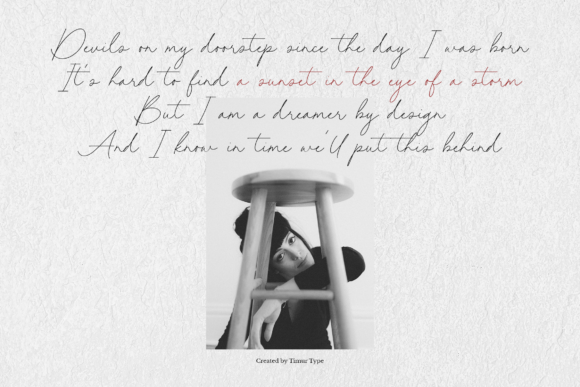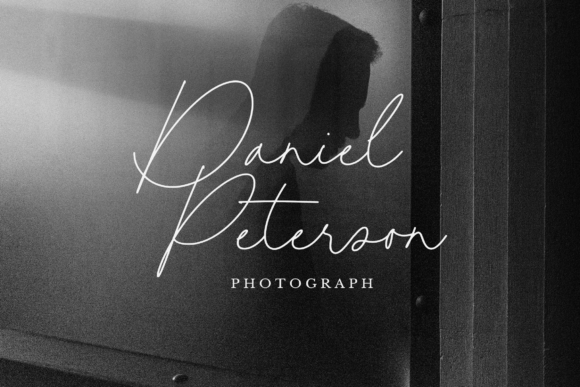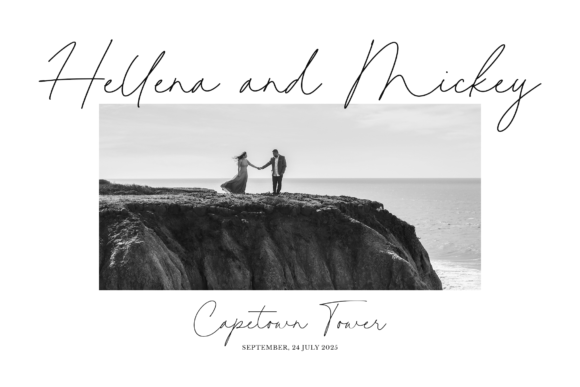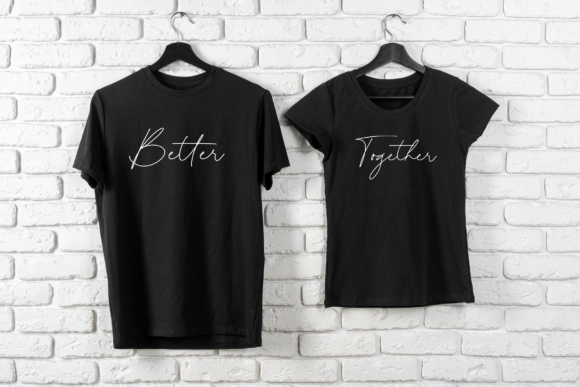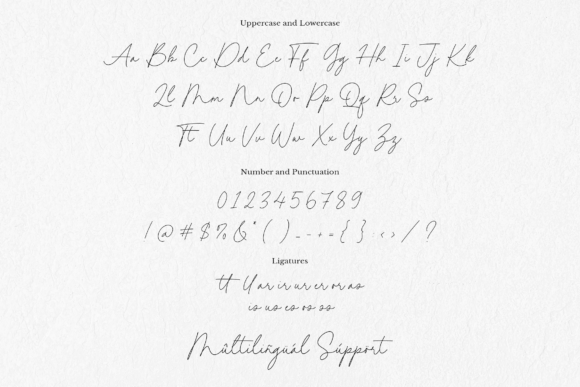
Discover the Elegance of Beauty Paradise Font
Are you on the hunt for a font that exudes elegance and sophistication? Look no further than the Beauty Paradise Font. This stunning, flowing handwritten font is sure to capture your heart with its incredibly distinct and timeless style. Perfect for designers and crafters, Beauty Paradise Font is an excellent addition to your typography collection.
The Characteristics of Beauty Paradise Font
Beauty Paradise Font boasts an elegant touch that sets it apart from other fonts. Its flowing, handwritten design makes it perfect for a variety of projects, from wedding invitations and branding materials to social media graphics and more. The font’s unique style is both classic and modern, allowing it to seamlessly integrate into any design.
Why Choose Beauty Paradise Font?
There are countless reasons why Beauty Paradise Font should be your go-to choice for your next design project. Here are just a few:
- Elegant and Sophisticated: The font’s elegant design makes it perfect for projects that require a touch of sophistication.
- Unique and Timeless: Beauty Paradise Font’s distinct style ensures that your designs will stand out and remain relevant for years to come.
- Versatile: This font is perfect for a wide range of projects, from digital designs to print materials.
Beauty Paradise Font is a must-have for designers and crafters who want to elevate their designs. Whether you’re creating:
- Wedding Invitations: Add a touch of elegance to your wedding invitations and save-the-date cards.
- Branding Materials: Use Beauty Paradise Font to create stunning logos, business cards, and brochures.
- Social Media Graphics: Make your social media posts stand out with this beautiful font.
- Digital Art: Incorporate Beauty Paradise Font into your digital art for a unique and eye-catching design.
Tips for Using Beauty Paradise Font
To get the most out of Beauty Paradise Font, here are a few tips:
- Pair it with Other Fonts: Combine Beauty Paradise Font with other fonts to create a unique and visually appealing design.
- Experiment with Colors: Try out different colors to find the perfect match for your design.
- Use it for Headings: Beauty Paradise Font is perfect for headings and titles, adding a touch of elegance to your design.
In conclusion, Beauty Paradise Font is a stunning addition to any design project. Its elegant and sophisticated design makes it perfect for a wide range of applications. Whether you’re a designer or crafter, this font is sure to inspire you to create spectacular designs. So why wait? Fall in love with Beauty Paradise Font and take your designs to the next level!